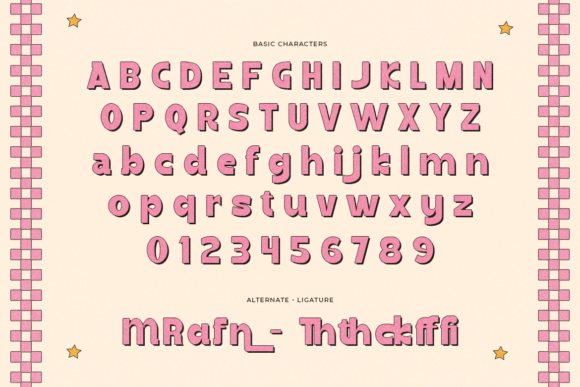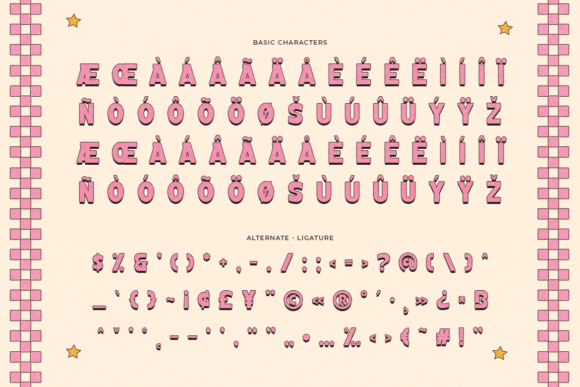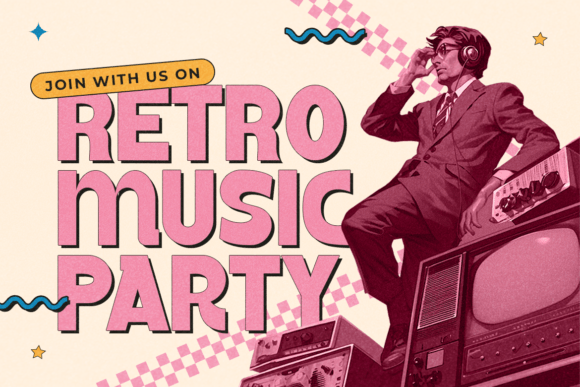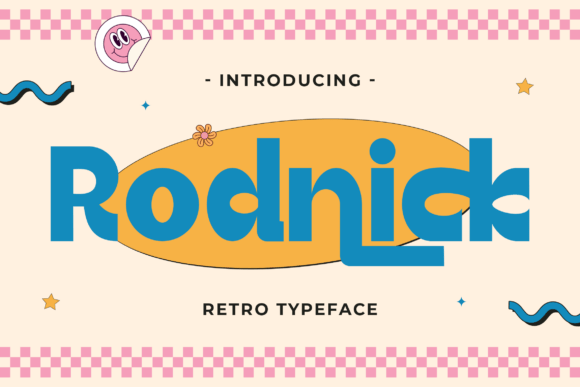
Introduction to Rodnick Font
Rodnick is a bold, bubbly, and beautifully groovy retro display font that’s ready to transport your designs straight to the swinging ’60s and ’70s.
With its smooth curves, soft rounded edges, and substantial weight, Rodnick embodies that unmistakable vintage flair, making it perfect for designers looking to inject a playful and nostalgic spirit into their work This typeface isn’t just a nod to the pastβ€”it’s built for modern digital design.
Key Features of Rodnick Font
Why Choose Rodnick Font?